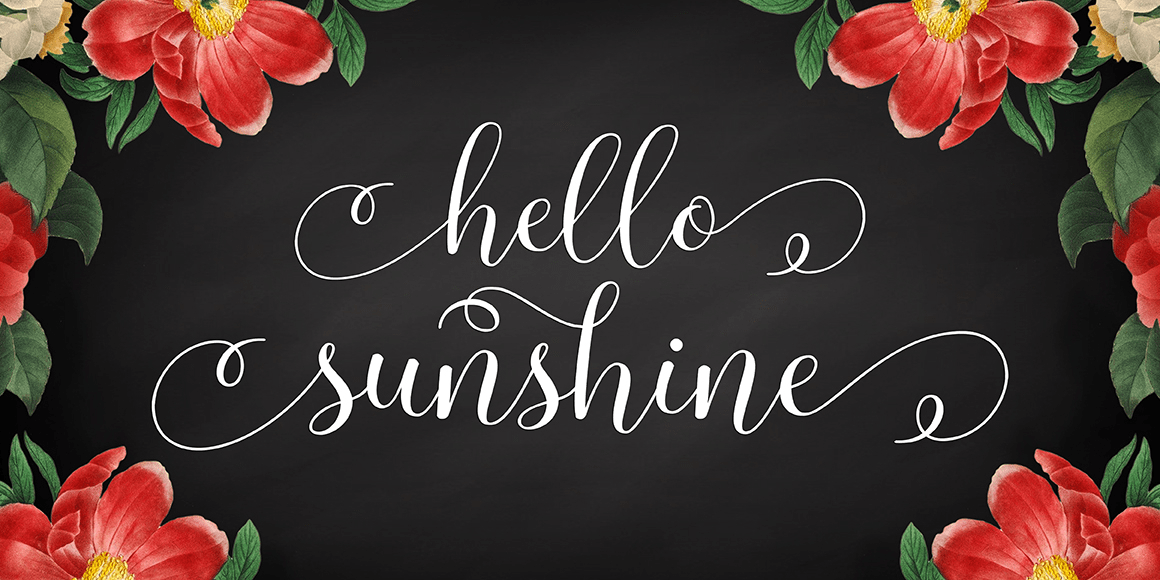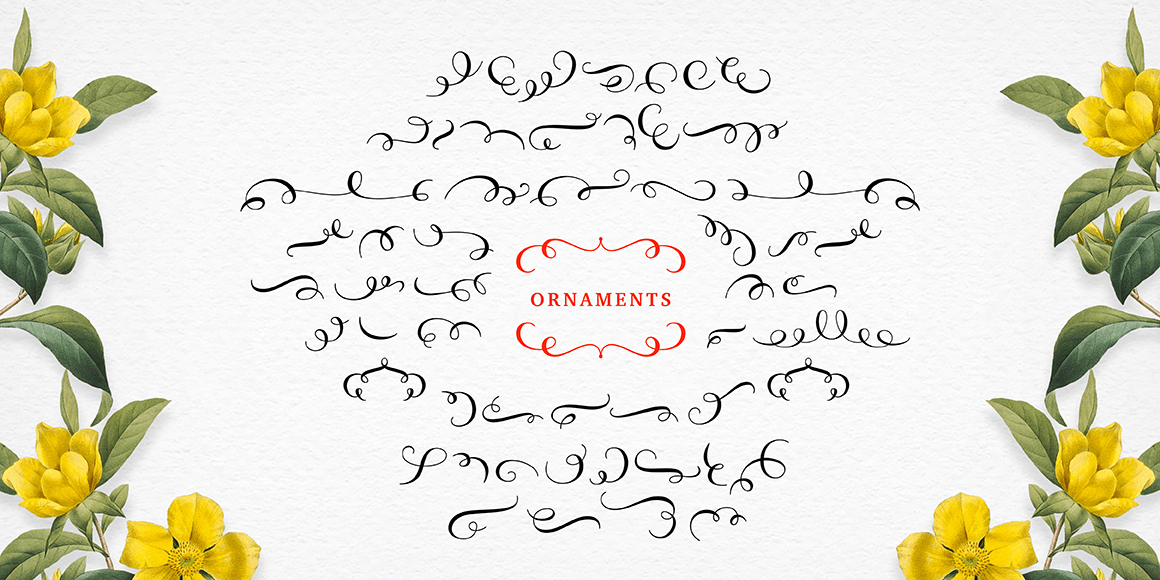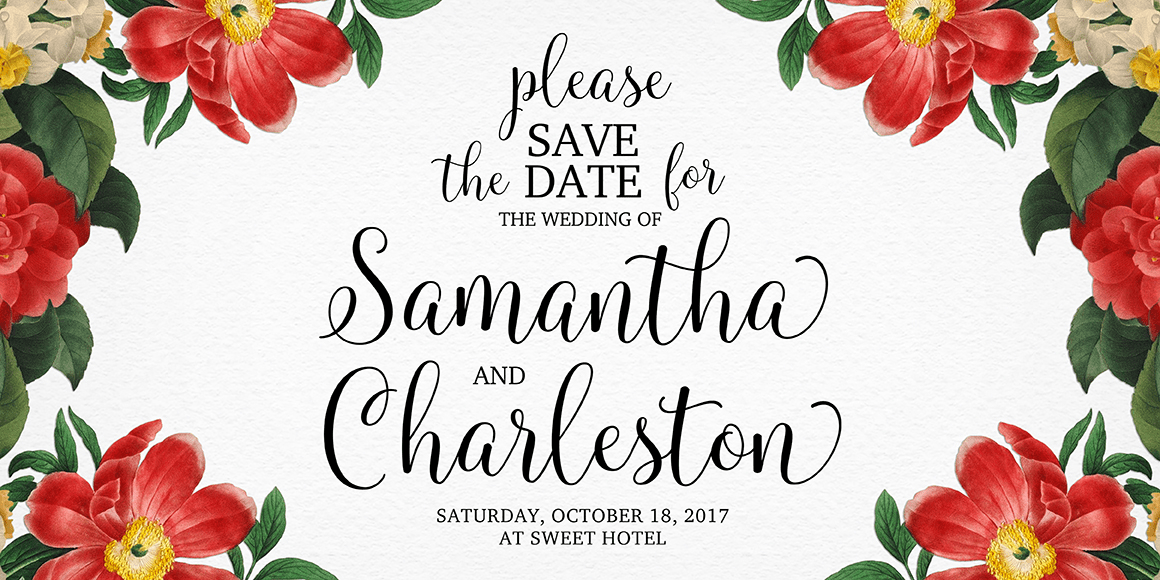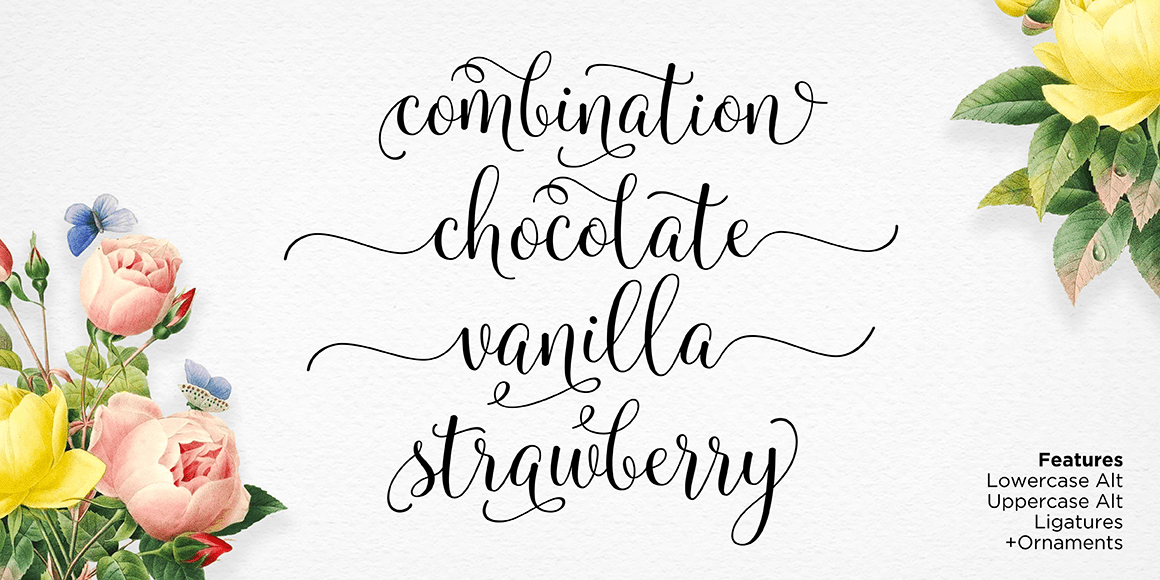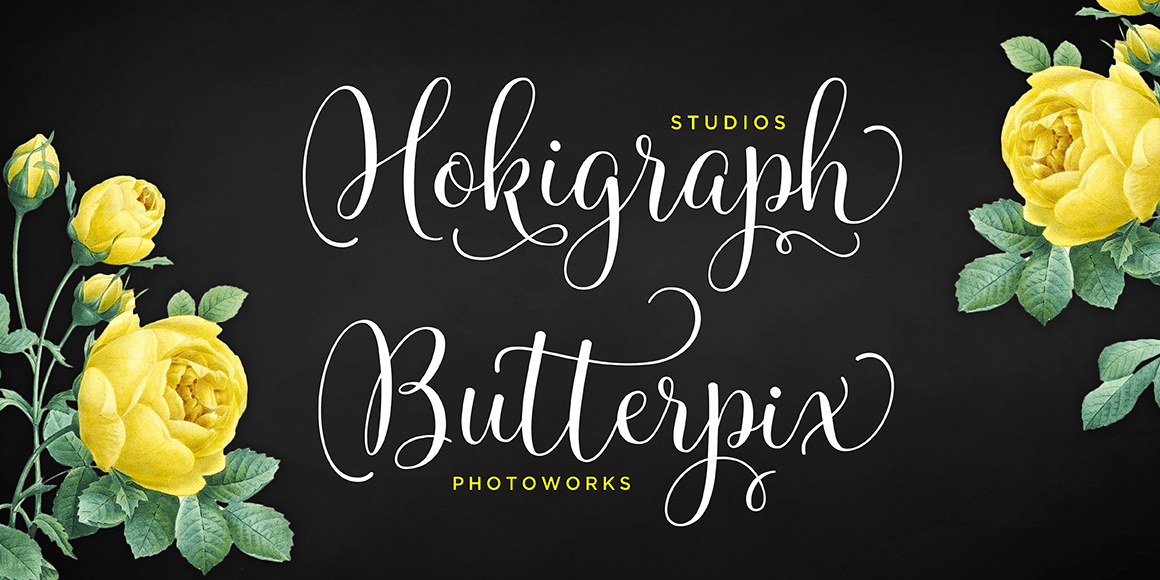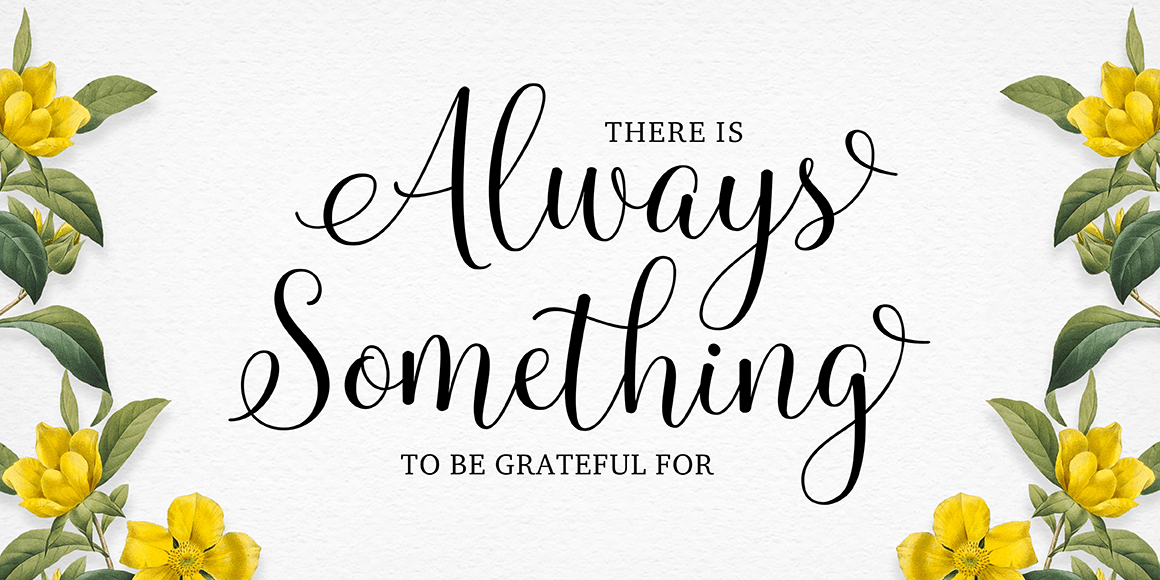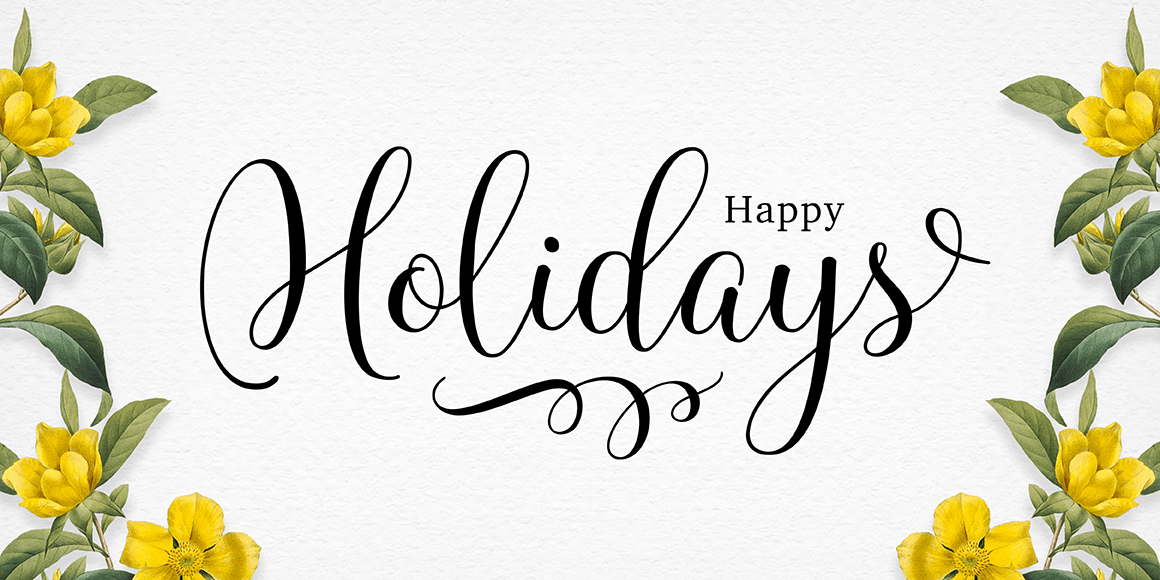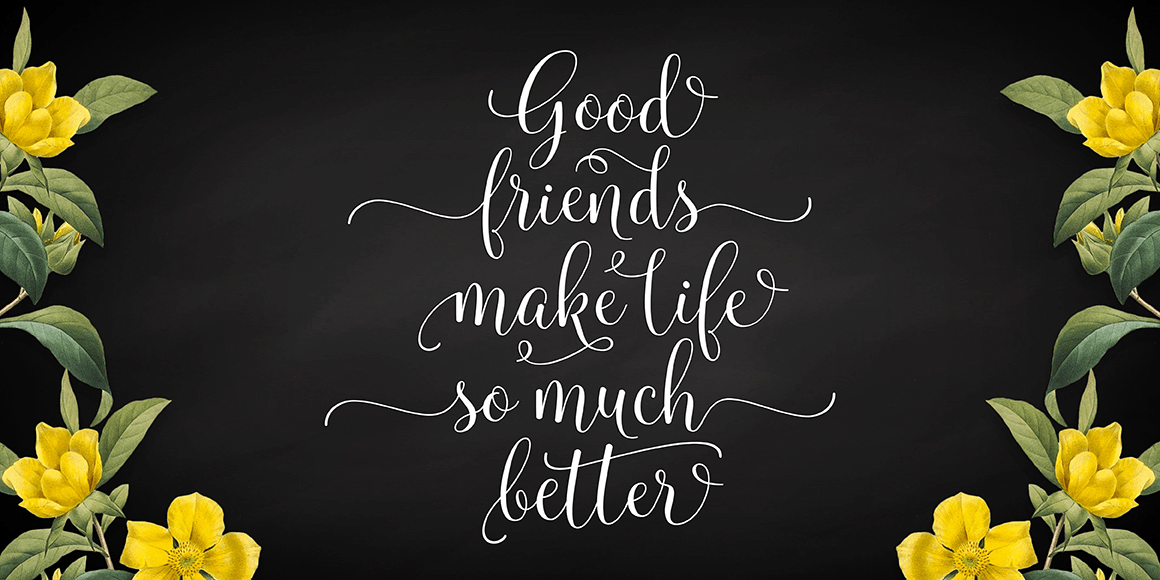
Molly Script
Molly Script is modern handwritten calligraphy typeface with dancing up and down the baseline that comes with lovely alternates. It works perfectly for logos, fashion, stationery, letterpress, magazines, menus, books, invitations, wedding / greeting cards, packaging, labels, apparel, marketing etc.
Molly Script features 515+ glyphs and 299 alternate characters. including initial and terminal letters, alternates, ornaments, ligatures and multiple language support.